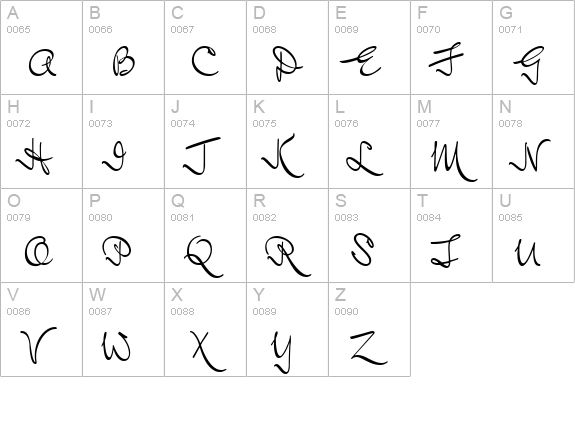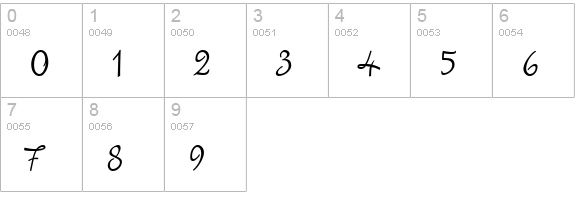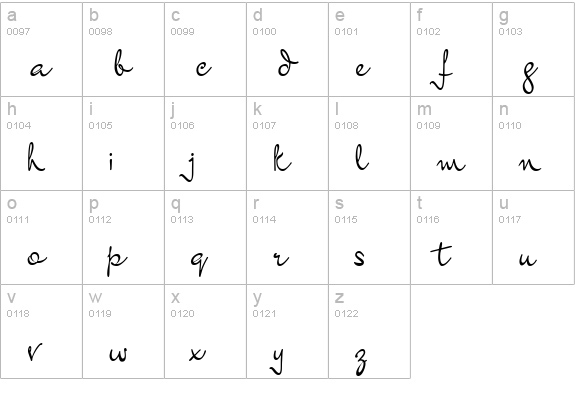
Mr Keningbeck Font Details
Mr Keningbeck font is a stunning display typeface that exudes elegance and sophistication. With its sleek lines and modern aesthetic, this font is perfect for adding a touch of class to any design project. Whether you're creating a logo, a poster, or a branding package, Mr Keningbeck font will surely make a statement. Best of all, Mr Keningbeck font is available for free download at FontsMarket.com. This means you can easily access this beautiful font and use it in your projects without any cost. Don't miss out on the opportunity to elevate your designs with the timeless beauty of Mr Keningbeck font. Download it now and let your creativity shine!